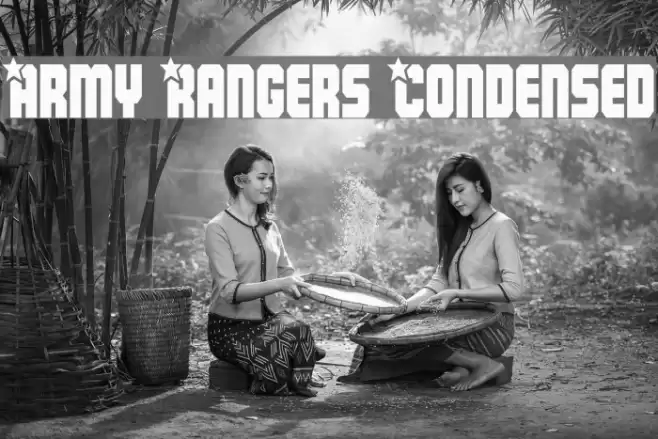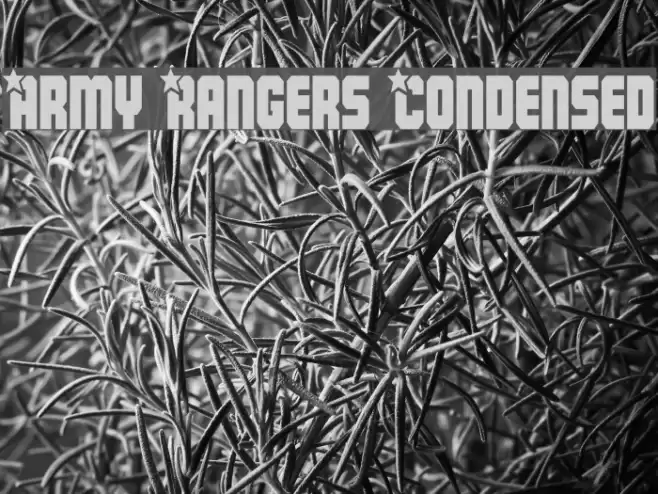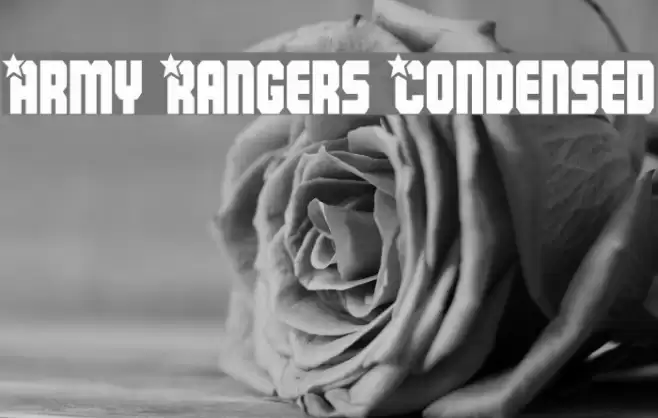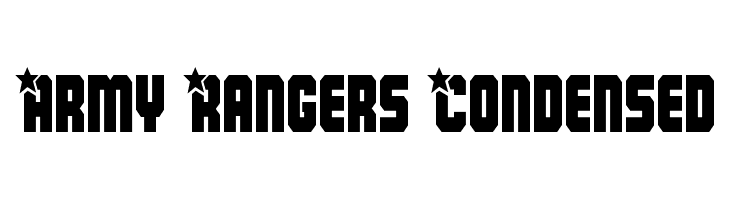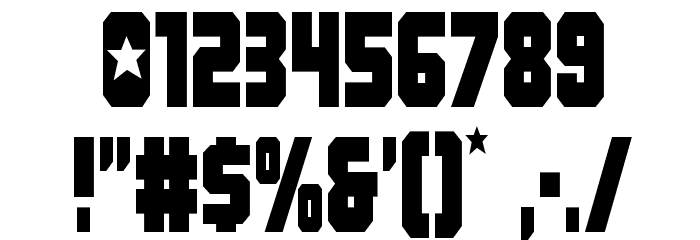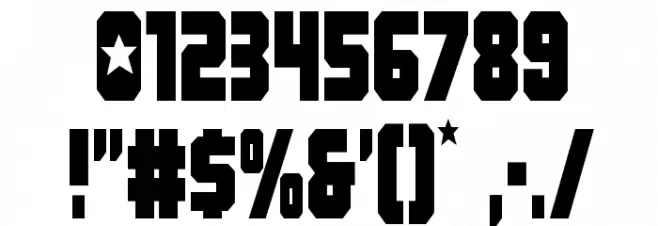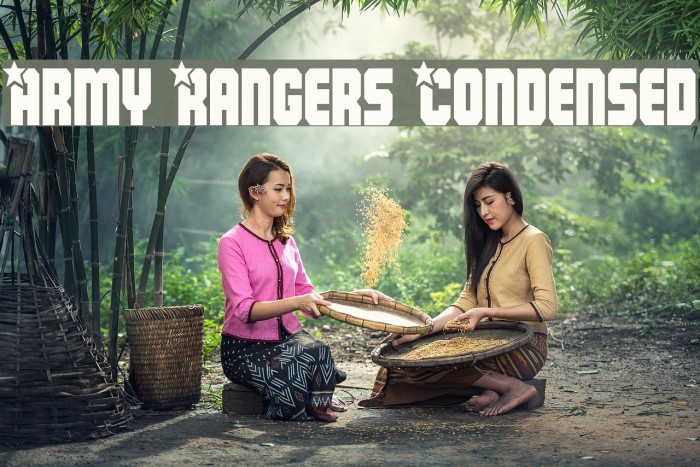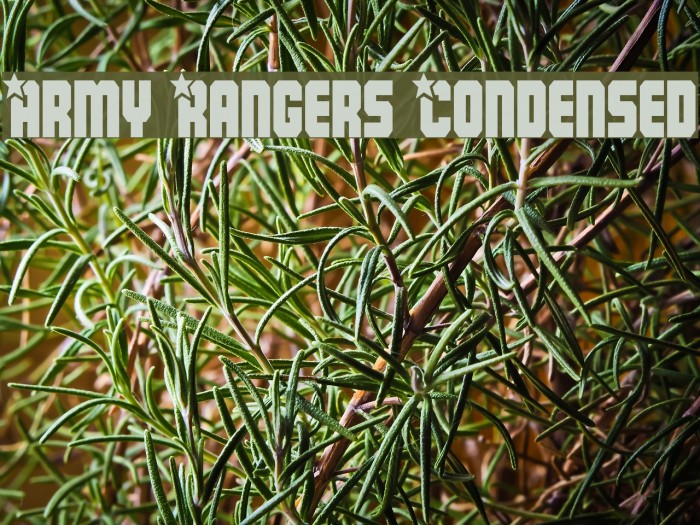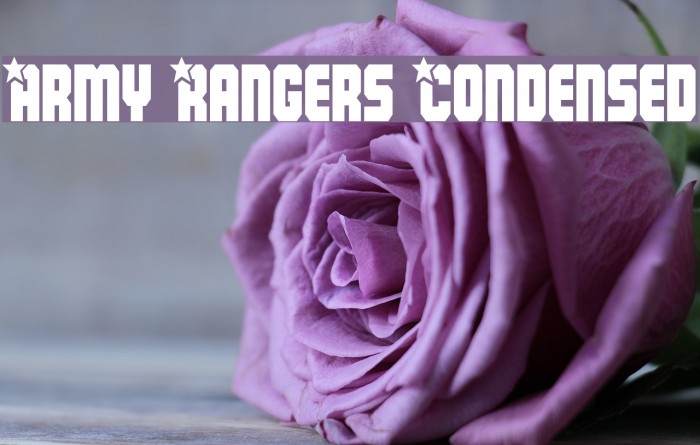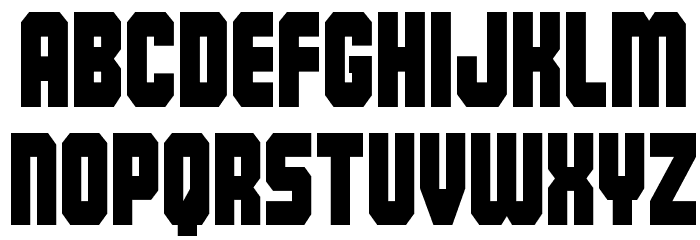
Army Rangers Condensed Font
Army Rangers Condensed Description
This bold, condensed font features a strong, military-inspired design with a star motif integrated into the uppercase letters. The geometric shapes and sharp angles give it a commanding presence, ideal for making a statement. The uppercase letters are adorned with stars, adding a decorative touch that enhances its thematic appeal. The font maintains a uniform thickness throughout, contributing to its bold and impactful look. The numbers and special characters follow the same robust style, ensuring consistency across all elements. This font is perfect for projects that require a strong, authoritative visual impact.
A bold, condensed font with a military-inspired design featuring star motifs from Uncategorized fonts.
- Proposed Projects: Ideal for military-themed posters, video game titles, branding for tactical gear, or any project needing a strong, authoritative look.